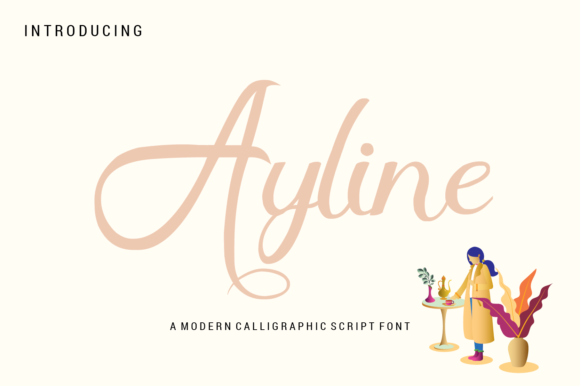
Discover the Timeless Beauty of Ayline Font
There’s nothing quite like the rush of creativity that comes with staring at a blank page, waiting for the perfect idea to strike. As designers, we’ve all been there – our minds racing with possibilities, our pencils scribbling down notes, and our imagination running wild. It’s in these moments that we find our inspiration, and for many of us, the right font can make all the difference.
That’s where the Ayline Font comes in – a stunning, handwritten font that’s designed to elevate your projects to new heights. With its elegant calligraphic influences and modern twist, Ayline Font is the perfect addition to any designer’s toolkit. Whether you’re working on a luxury brand, a wedding invitation, or a personal project, this versatile font is sure to bring your vision to life.
Ayline Font Key Features
- Font Family: Ayline is a modern script font designed to convey elegance and sophistication.
- Unique Characteristics: Ayline features a unique blend of cursive and calligraphic elements, making it ideal for creative and artistic projects.
Ayline Font Review
As a designer, I’ve had the chance to work with a wide range of fonts, and my experience with Ayline has been quite interesting. Here’s my honest review.
- Unique Aesthetic: Ayline has a distinct, modern look that can add a touch of sophistication to any design project.
- Legibility: The font is highly legible, making it suitable for body text, headings, and even signage.
- Good for Digital Use: Ayline performs well in digital environments, such as websites, mobile apps, and e-books.
- Not Suitable for Long Texts: Ayline’s unique style can make long blocks of text appear cluttered or overwhelming.
- Limited Versatility: While Ayline is great for modern designs, it may not be the best choice for more traditional or vintage-inspired projects.
Ayline is a solid choice for designers looking for a modern, legible font with a unique aesthetic. While it may not be the best fit for every project, it’s definitely worth considering for designs that require a touch of sophistication and style.
Getting the Most Out of Ayline Font
Ayline Font is a versatile font that can be used in a variety of contexts. To get the most out of it, try using it in combination with other design elements, such as images and graphics. Experiment with different font sizes, colors, and styles to create a unique and eye-catching look.
Ayline Font is commonly used in graphic design, web design, and digital marketing. It is particularly effective for creating headings, titles, and other attention-grabbing text elements. Try using it in your next project to add a touch of sophistication and elegance.
Alternatives to Ayline Font
Playfair Display is a luxurious and elegant serif font. It is ideal for creating a high-end and sophisticated look in branding, advertising, and editorial content. This font features a classic touch with modern flair, making it suitable for use in both traditional and contemporary designs.
Compared to Ayline Font, Playfair Display has a more classic and luxurious feel, while Ayline Font has a more modern and sleek look. Playfair Display is better suited for formal and high-end designs, whereas Ayline Font is more versatile and can be used in various contexts.
Great Vibes is a beautiful and elegant script font. It is perfect for creating a warm and inviting atmosphere in branding, packaging, and editorial content. This font features a flowing and cursive style, making it suitable for use in designs that require a touch of sophistication and elegance.
Compared to Ayline Font, Great Vibes has a more fluid and cursive feel, while Ayline Font has a more modern and sans-serif look. Great Vibes is better suited for designs that require a sense of warmth and invitation, whereas Ayline Font is more versatile and can be used in various contexts.